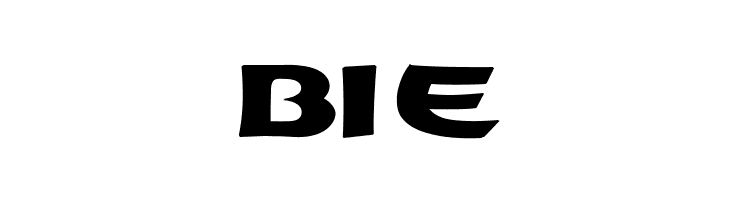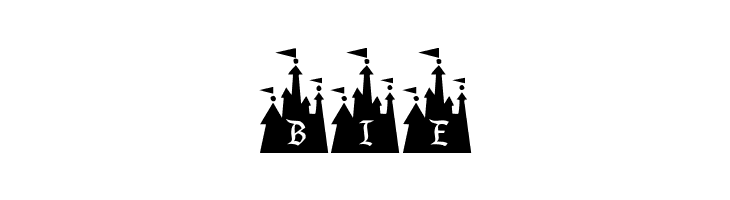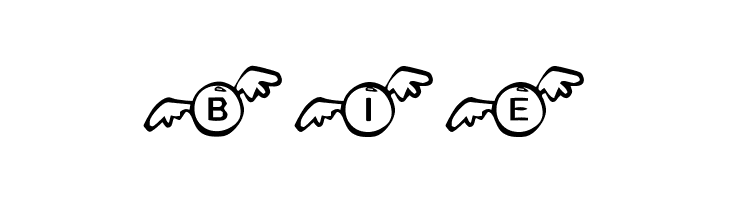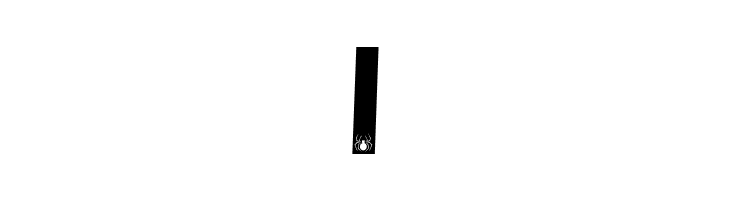
A modern, geometric font with smooth, rounded edges and balanced spacing.
A modern, geometric font with clean lines and balanced spacing.
A bold, geometric sans-serif font with rounded edges and a modern style.
A whimsical, fantasy-themed font with magical embellishments.
A bold, angular font with a medieval and fantasy-inspired design.
A whimsical, castle-themed decorative font ideal for magical and fantasy projects.
A whimsical font with winged circular letters, perfect for fantasy themes.
A bold, playful font with spider icons for a whimsical touch.
A modern, clean sans-serif typeface with a minimalistic design.